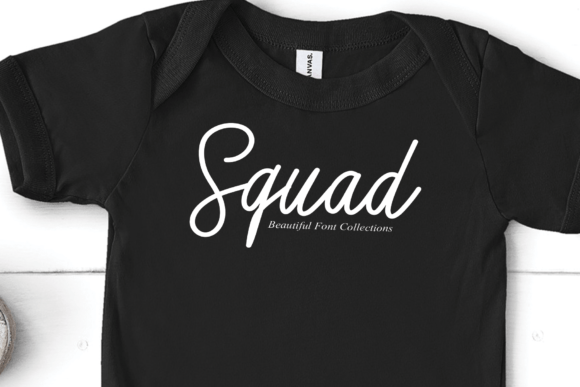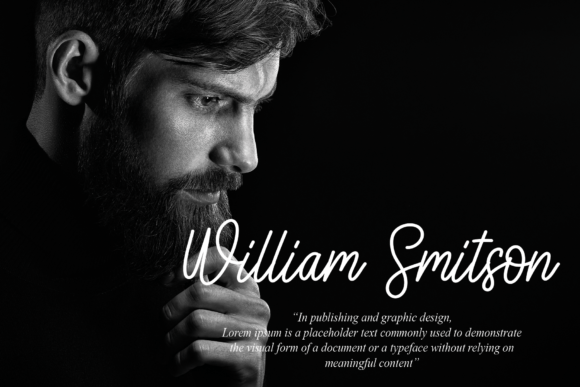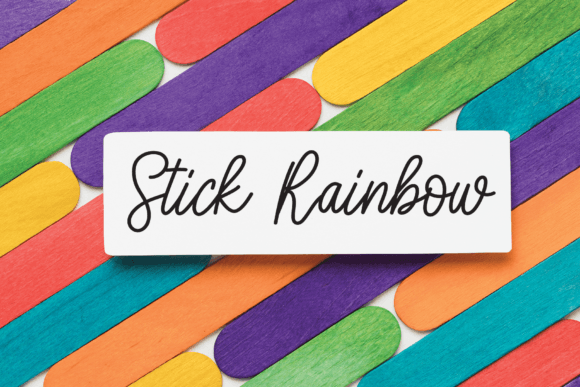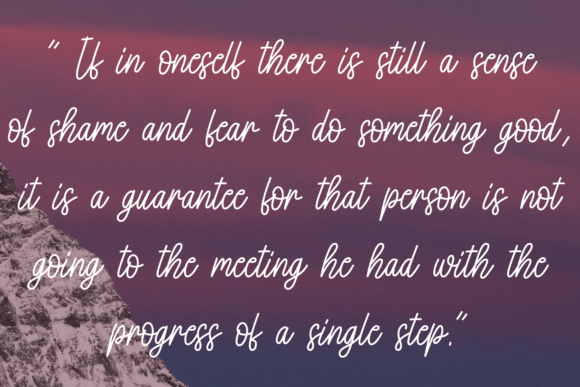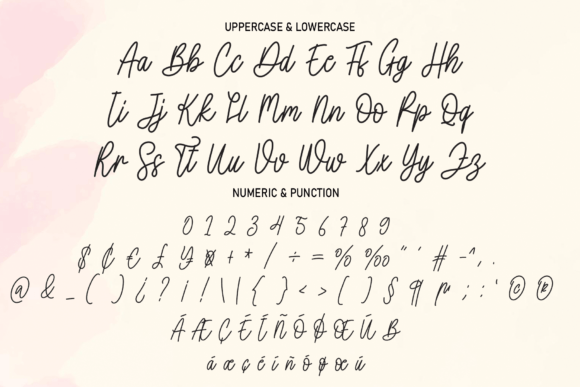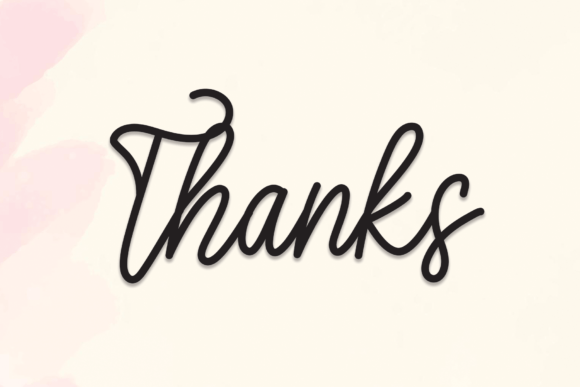
History Font
About History Font
“History” is a remarkable handwritten font that embodies elegance and charm, making it an excellent choice for your creative ventures. Its meticulous design, coupled with an elegant touch, renders it perfect for a wide array of projects. With “History,” you’re not just getting a font; you’re acquiring a timeless piece of art that enhances the visual appeal of your favorite projects.
The allure of “History” lies in its distinct and graceful style. Each letter is crafted with precision, exuding a sense of sophistication that captures the eye. Its handwritten quality adds a personal touch to your designs, creating a connection with your audience. Whether you’re designing invitations, greeting cards, or promotional materials, “History” lends a touch of class, making your projects stand out.
What makes “History” truly exceptional is its versatility. It seamlessly fits into both formal and informal contexts, adapting to the tone of your project effortlessly. The characters are legible yet stylish, striking the perfect balance between readability and artistic expression. This versatility ensures that “History” is not just a font; it’s a tool that empowers your creativity, allowing you to explore various design possibilities.
The timelessness of “History” is another captivating aspect. In an ever-evolving design landscape, this font remains a beacon of enduring style. It adds a touch of nostalgia while maintaining a contemporary flair, making it relevant for a myriad of design projects. Whether you’re working on digital media or print materials, “History” adds a touch of vintage elegance, elevating your designs to new heights.
Working with “History” is a delightful experience. Its smooth and flowing characters make it easy to use, whether you’re a seasoned graphic designer or a novice exploring the world of design. The font’s cohesive design ensures consistency across your projects, enhancing the overall aesthetic appeal. With “History” at your disposal, your creative journey becomes both enjoyable and inspiring.
In conclusion, “History” is more than just a font; it’s a creative companion that transforms your ideas into visual masterpieces. Its elegant touch, distinct style, and timeless beauty make it an invaluable asset for any designer. Fall in love with the artistry of “History,” and let it breathe life into your projects. Explore its possibilities, embrace its charm, and witness how it turns your designs into spectacular creations that leave a lasting impression. Let “History” be the brushstroke of creativity that paints your creative vision into reality.